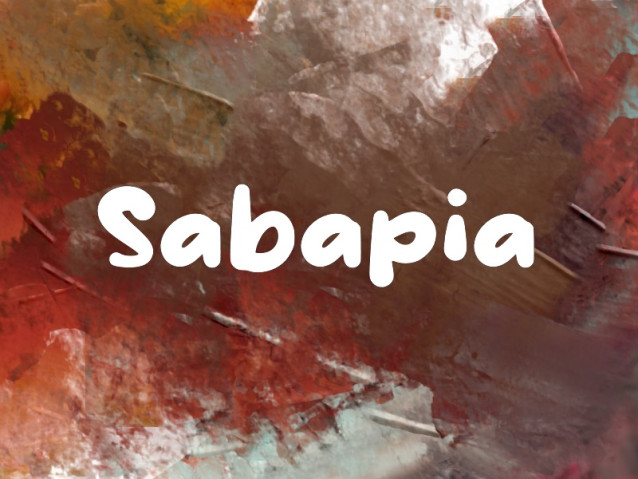
Sabapia Font
Sabapia Font is a simple and modern display font suitable for quotes, logos, headings, titles, and many more. Use it on any of your creative projects, and your designs will become outstanding!